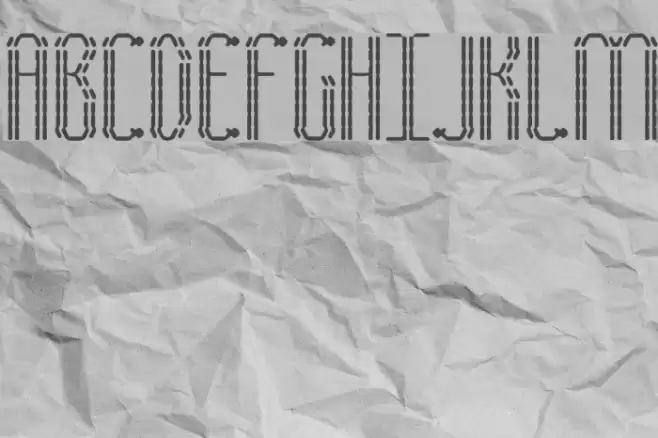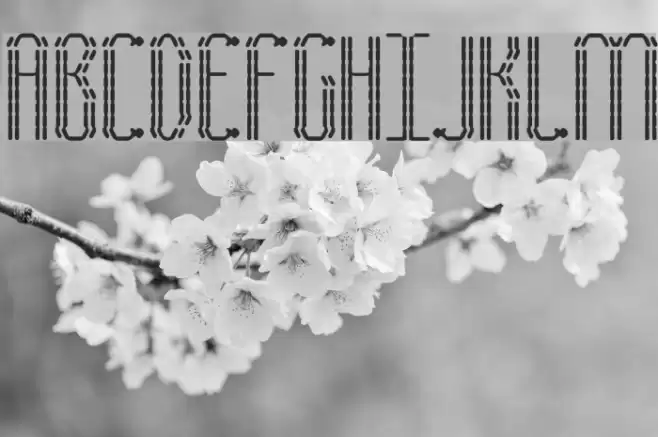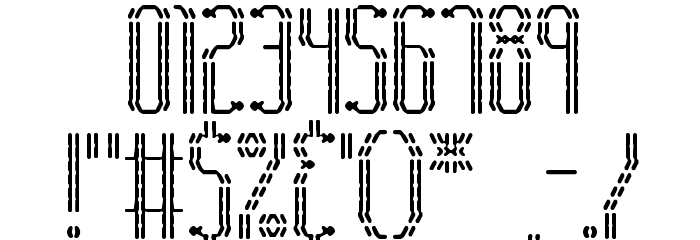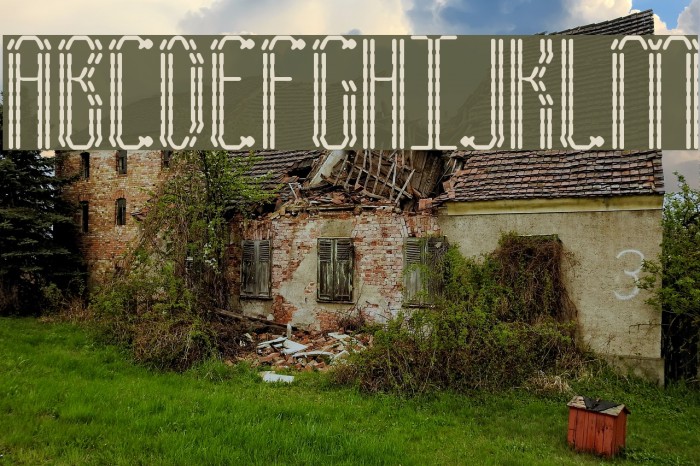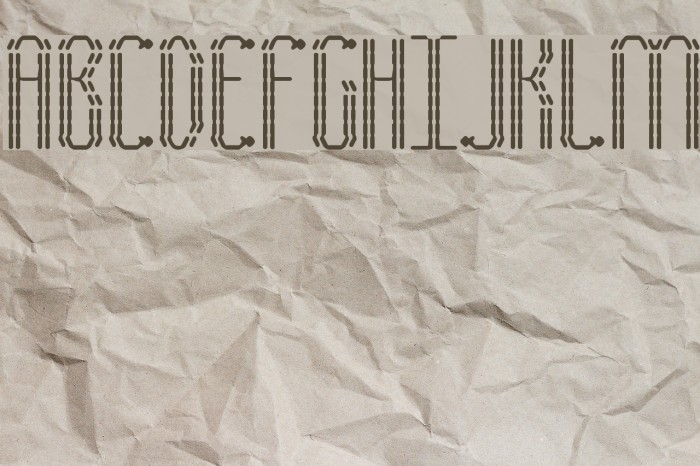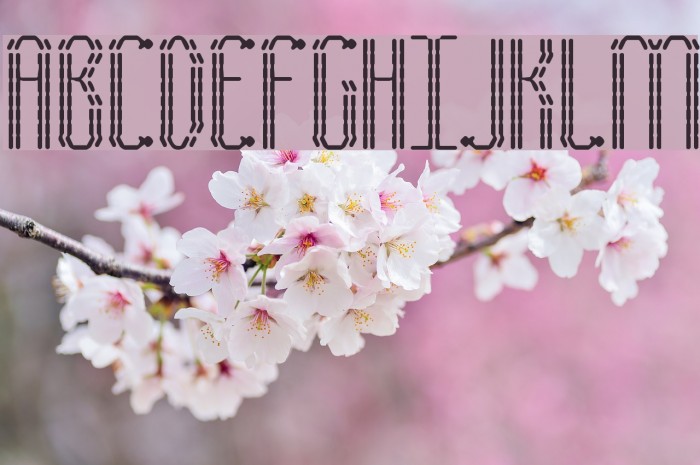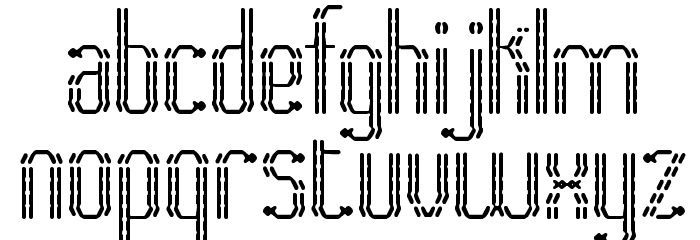
Fascii BRK Font
Fascii BRK Description
This font features a unique, decorative style that mimics the appearance of ASCII art. Each character is constructed with a series of vertical and horizontal lines, creating a pixelated, digital look. The uppercase and lowercase letters maintain a consistent height, while the numbers and special characters are designed to match the overall aesthetic. This font is particularly distinctive due to its intricate line work and geometric shapes, making it stand out in any design project. The characters are evenly spaced, ensuring readability despite the complex design.
A decorative font inspired by ASCII art with intricate line work and geometric shapes from Script fonts.
- Proposed Projects: Ideal for digital art projects, retro-themed designs, tech-related branding, and creative posters.